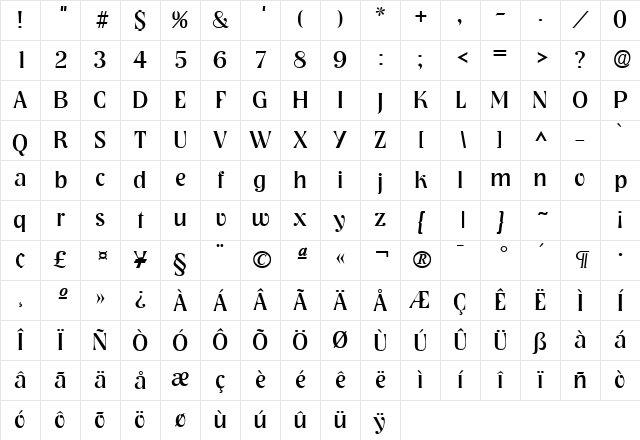
Tennessee SF Regular
Design Context for Tennessee SF
Tennessee SF is a composed and adaptable typeface that performs quietly and consistently across a wide range of design contexts.